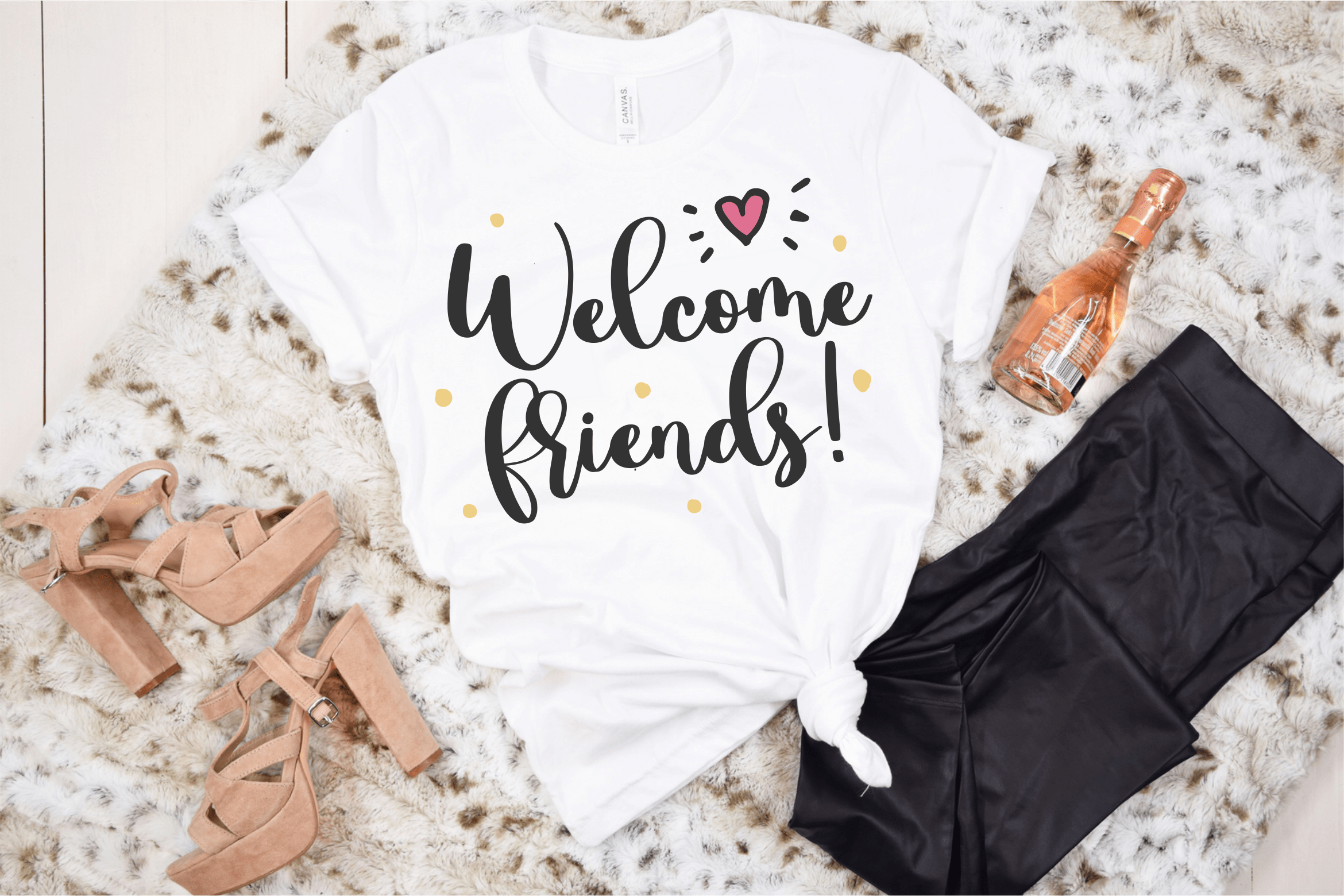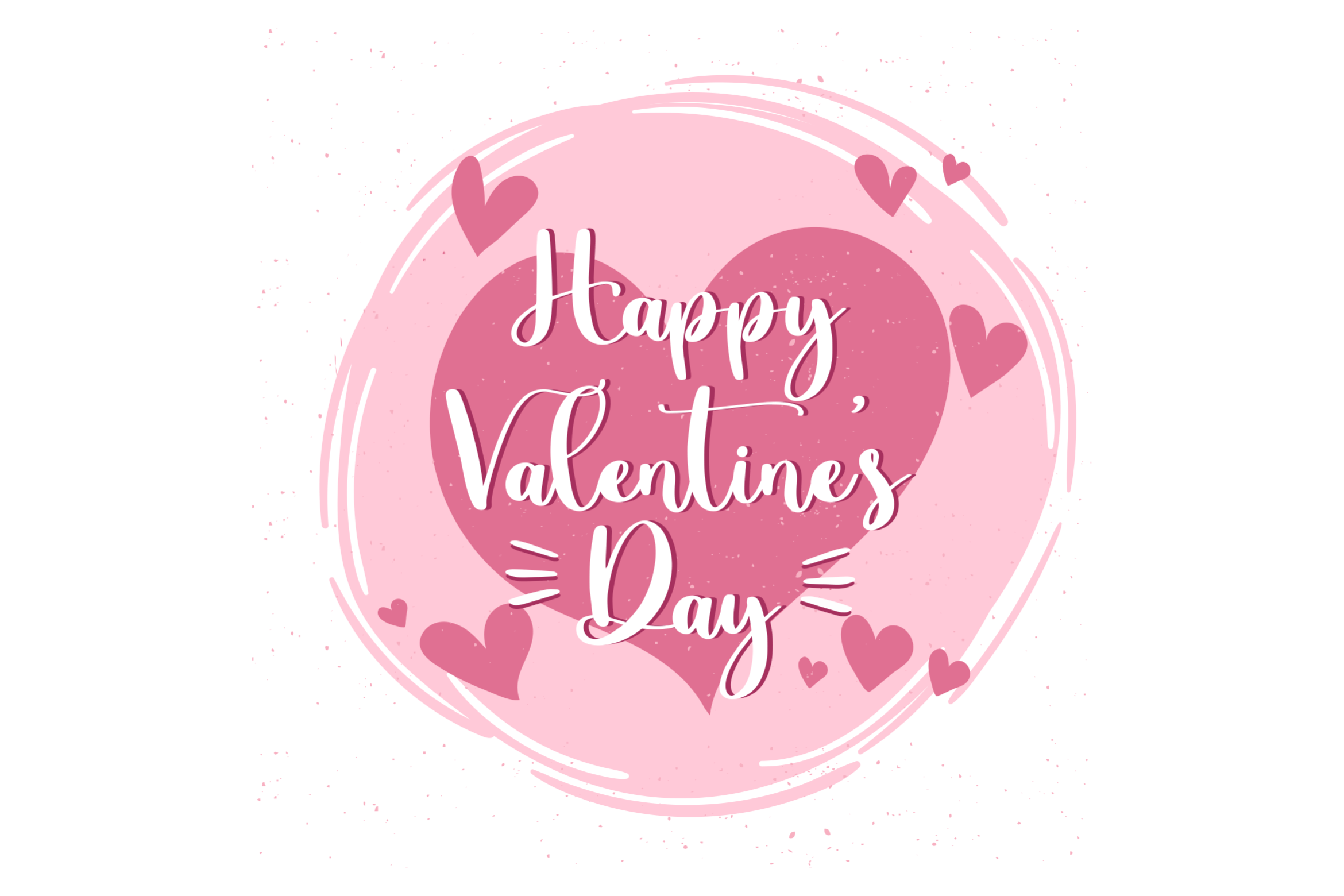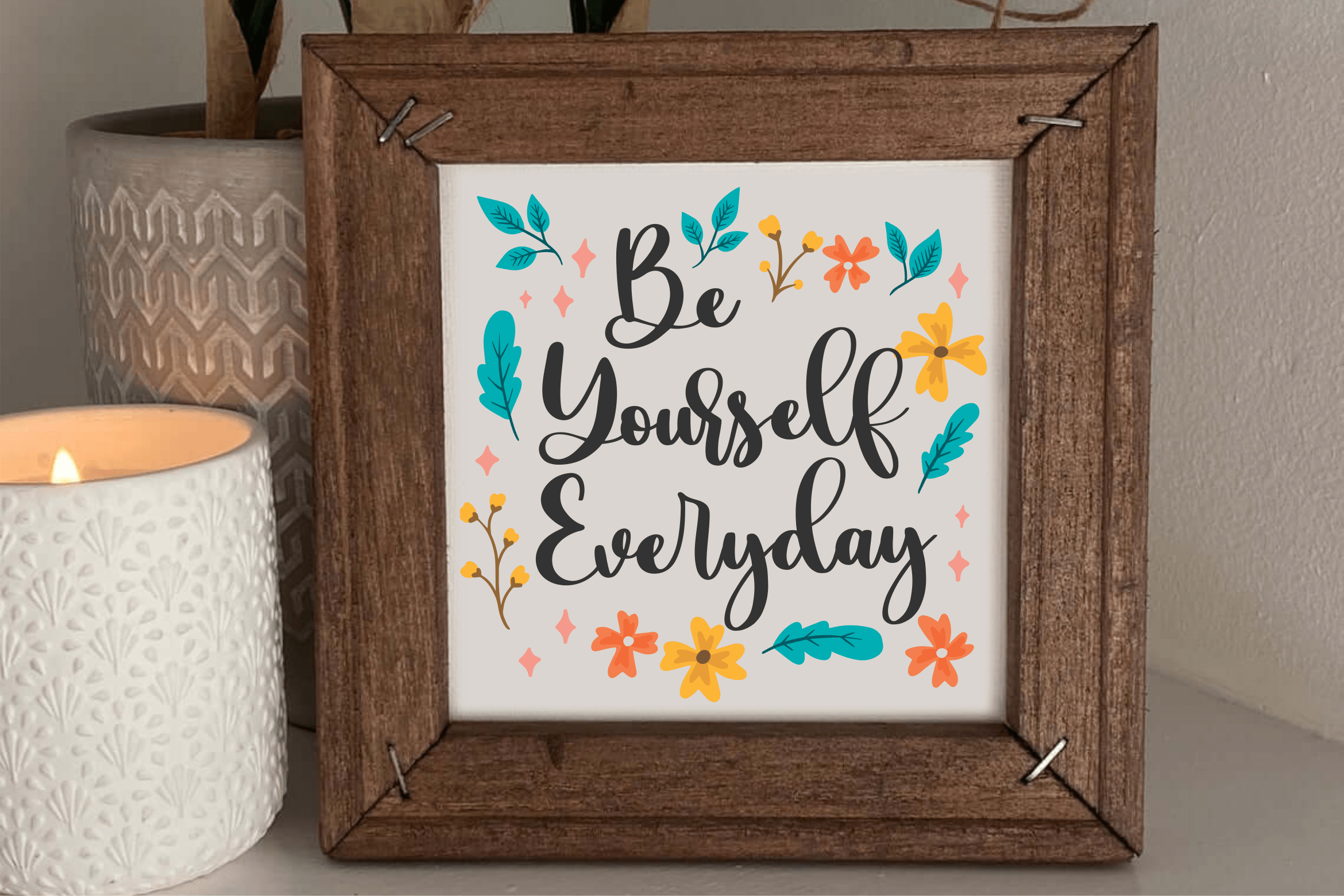
Moryscript Font
Moryscript Script Font
It’s a lovely script font featuring charming, playful characters that seem to dance along the baseline. Add this font to your most creative ideas, and notice how it makes them stand out!